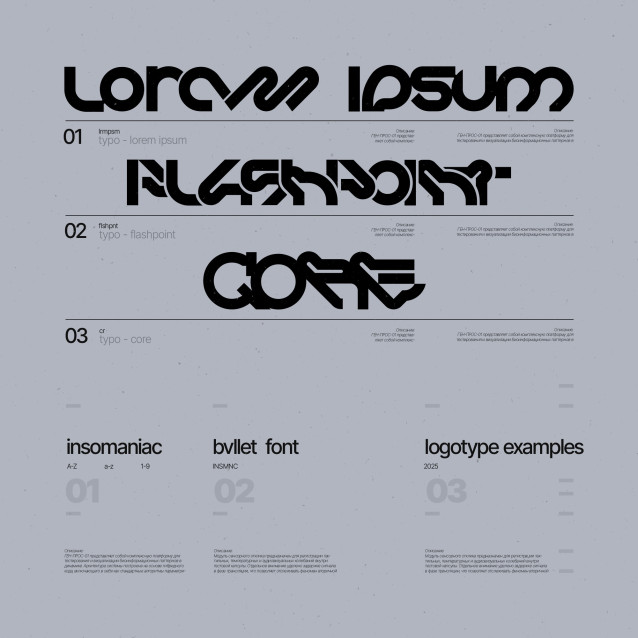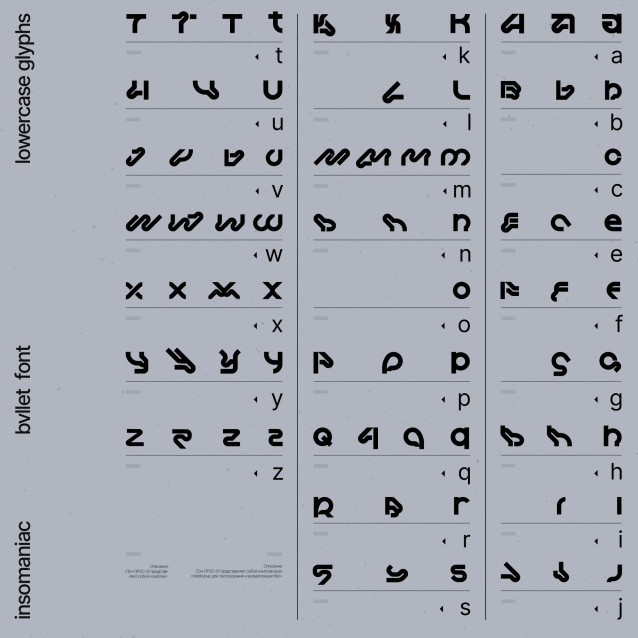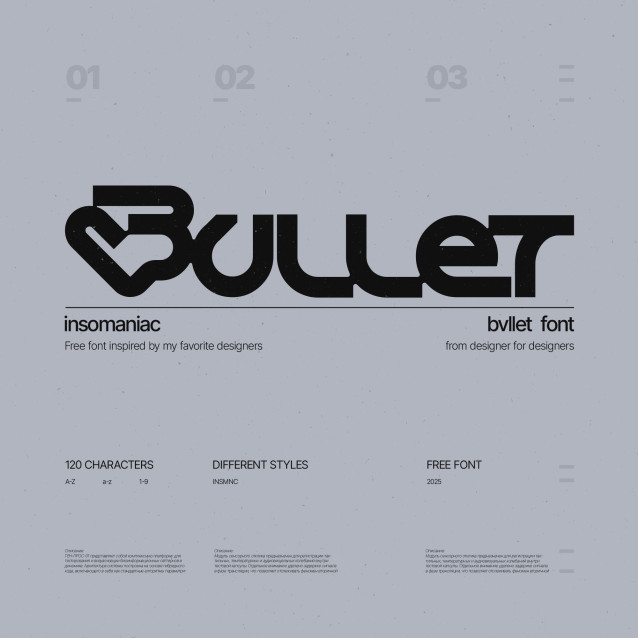
Bvllet Font
Bvllet Font is a cutting-edge display typeface that fuses brutalist geometry with smooth modular forms. Designed for designers, this font plays with symmetry, sharp angles, and stylized cuts, creating a visual language that feels both industrial and futuristic. Its unique characters give it instant attitude, while its heavy weight makes it a powerful choice for bold branding.
Inspired by the aesthetics of insomnia-fueled design sessions and the influence of modern creative culture, Bvllet is built to make statements. Perfect for posters, album art, tech brands, and editorial layouts, this type-face doesn’t whisper-it hits hard.